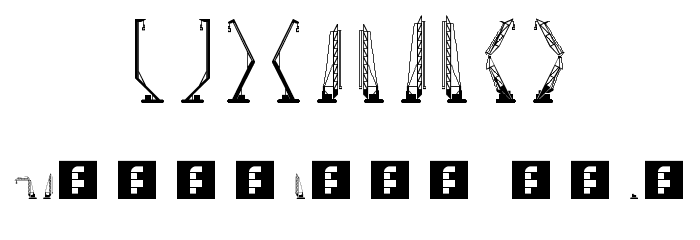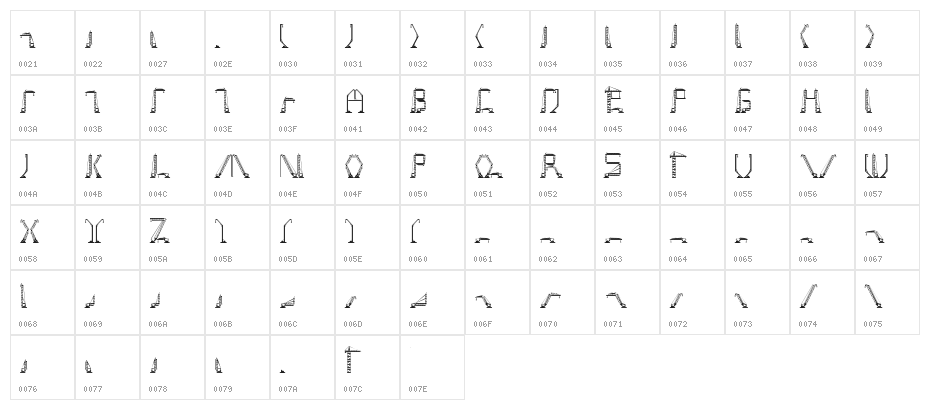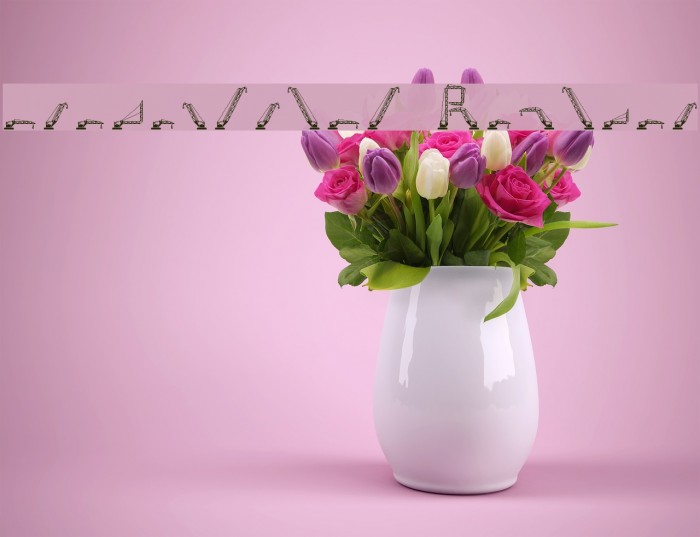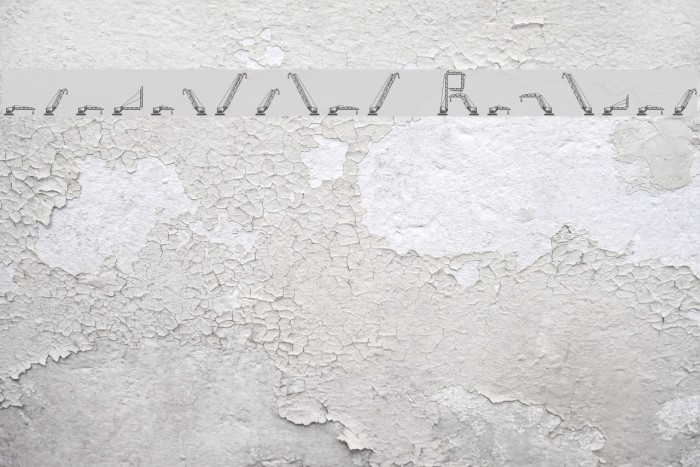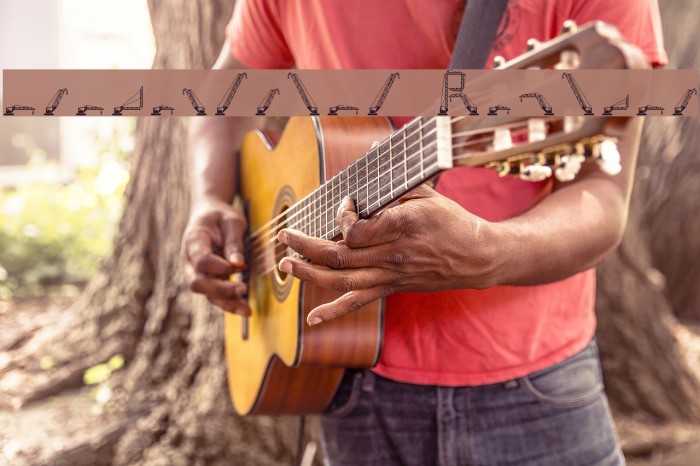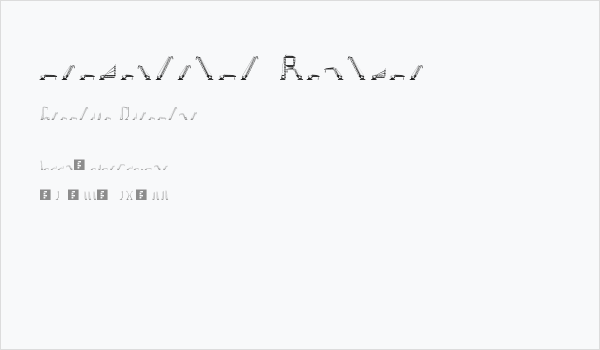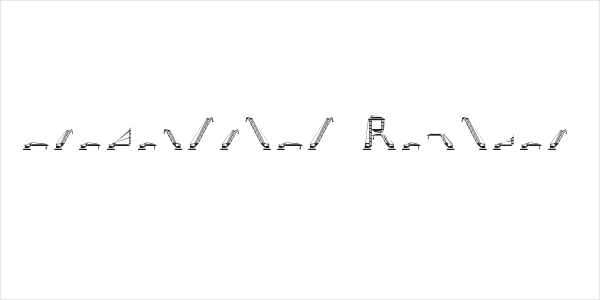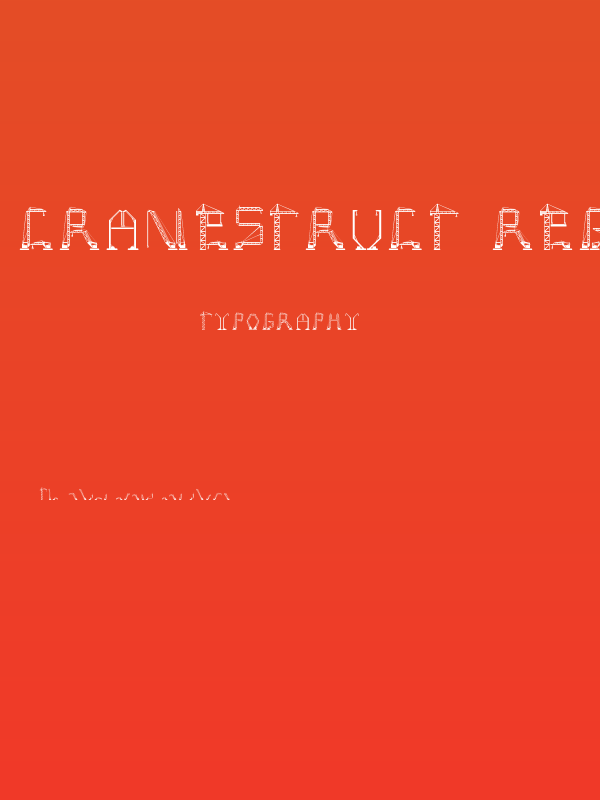
cranestruct Regular Font
cranestruct Regular Description
This font features a unique and industrial design, with each character resembling a construction crane. The letters are constructed with intricate details that mimic the structure and mechanics of cranes, giving it a mechanical and architectural feel. The uppercase letters are particularly striking, with bold lines and geometric shapes that convey strength and stability. The lowercase letters maintain the same thematic elements but are more compact. Numbers and special characters are also designed in the same style, ensuring consistency across the font. This font is perfect for projects that require an industrial or construction theme, offering a distinctive and eye-catching appearance.
| Overall Style | Industrial, Mechanical |
| Use Case | Logos, Posters, Themed Events |
| Proposed Projects | Ideal for construction company logos, architectural presentations, industrial-themed posters, and educational materials related to engineering. |